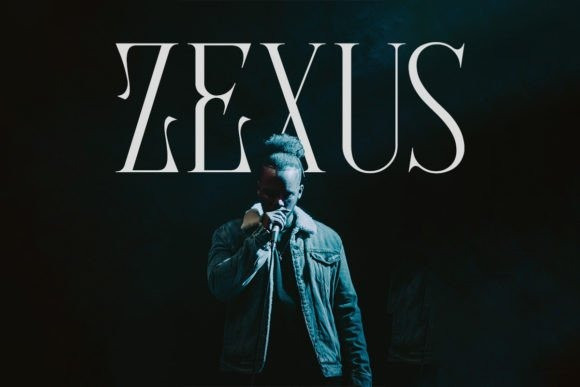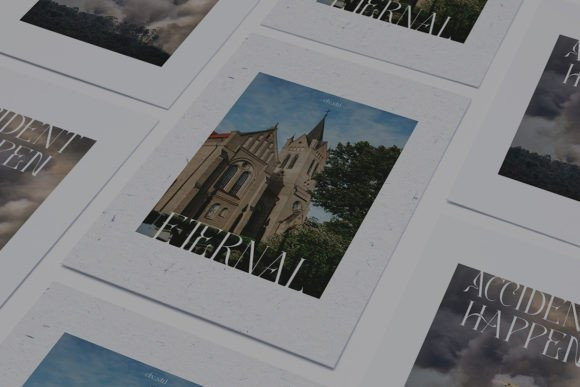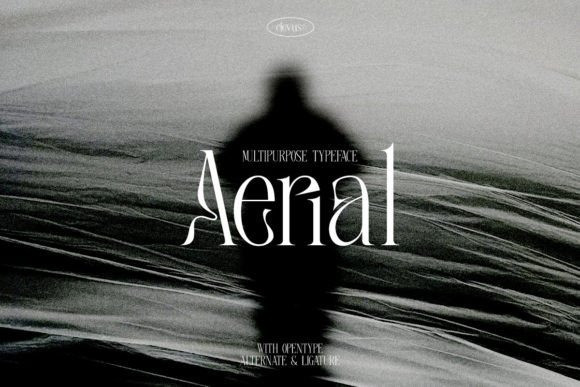
Aerial Font
Aerial Font a stunning and refined serif font that exudes luxury and sophistication. Its thin, tapered serifs and elongated letterforms create a sense of timeless elegance, making it a perfect choice for high-end logos, editorial layouts, and upscale packaging. Renaissance is a font that embodies the beauty of the classic design. This font is PUA encoded which means you can access all of the amazing glyphs and ligatures with ease!